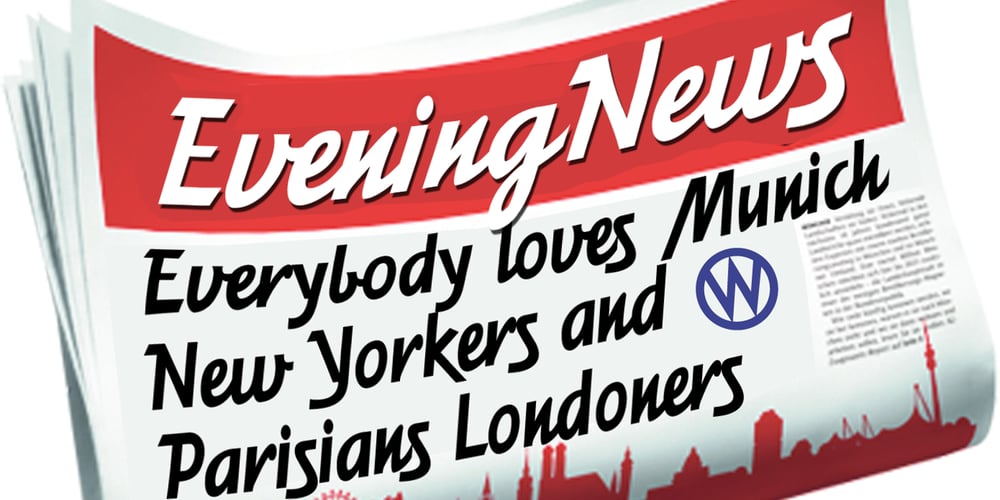
Eveningnews
Eveningnews font
Eveningnews Font Family was designed by Gert Wiescher and published by Wiescher Design. Eveningnews contains 2 styles and family package options. Since many years I live in Munich and read the daily newspaper Abendzeitung. One morning they had redesigned the paper, using Eric Gill’s Joanna for the body copy and a tweaked version of Franklin Gothic for the headlines. Since both typefaces are my all-time favorites, I was very pleased. The old hand-lettered title lettering designed by in-house designer Ernst Friedrich Adler around 1947 or 48 was untouched as it always was. Adler had worked for the newspaper an incredible 47 years! Ernst Friedrich Adler celebrated his 100th birthday in the summer of 2007 looking very healthy. But someone had adapted his title lettering for use in the chapter headings, and I did not like the way that was done. Every morning I saw those letters and thought “one day I have to clean that up”. About 15 years later I finally did it! Being at it, I designed the whole typeface and added a second fancy cut. And, what do you know, the people at the Abendzeitung called me up and said they liked what I did and started using it. So since that day in 2005 I can read my morning paper without having to wonder about the chapter headings. Well maybe one day they will do another redesign and maybe they will use another one of my fonts. Your editorial typeface designer, Gert